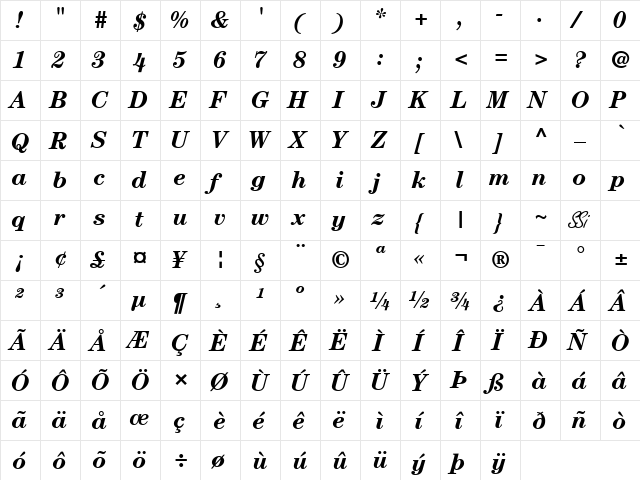
Century SSi Bold Italic
Design Context for Century SSi Typeface
Century SSi offers clean, dependable letterforms without strong stylistic allegiance, making it a practical choice for designers who need flexibility. The slanted form adds forward momentum and visual energy. The heavy weight commands attention and anchors typographic hierarchies.
Pro Tip: Try Century SSi for annotation and caption copy alongside an upright companion — the contrast in angle creates a dynamic but ordered typographic system.